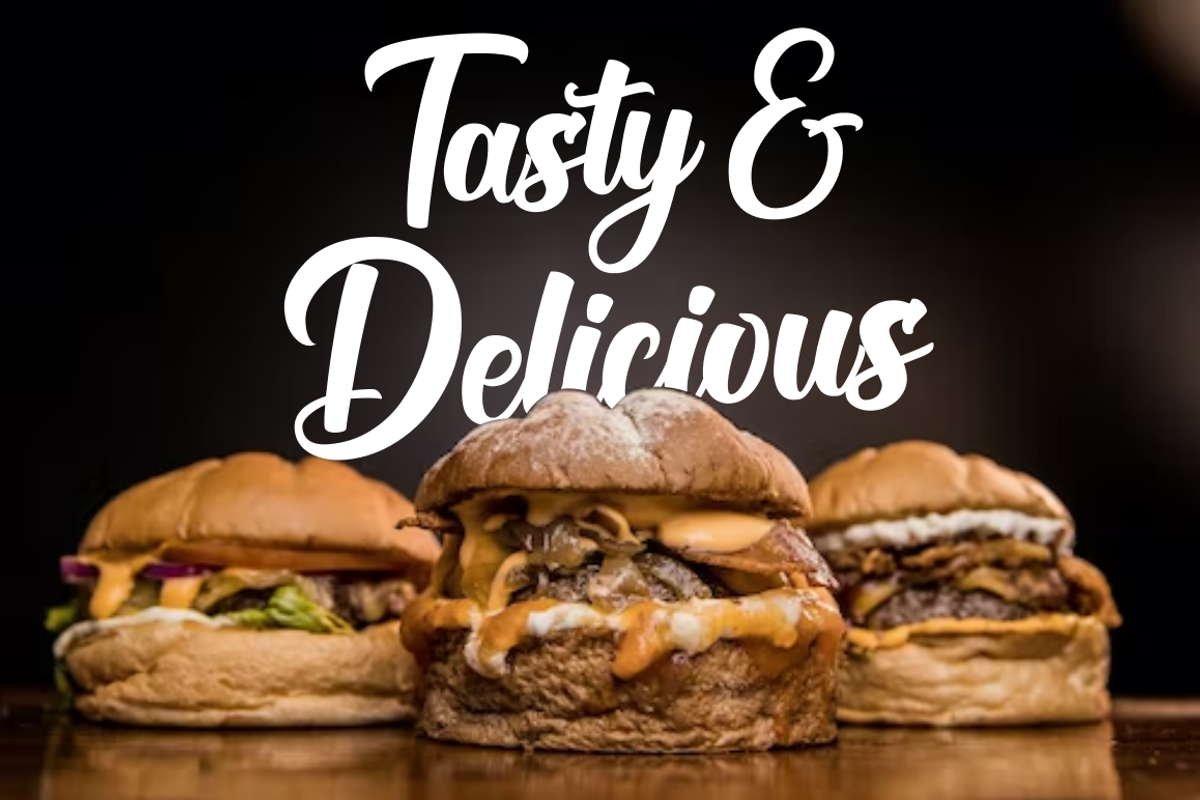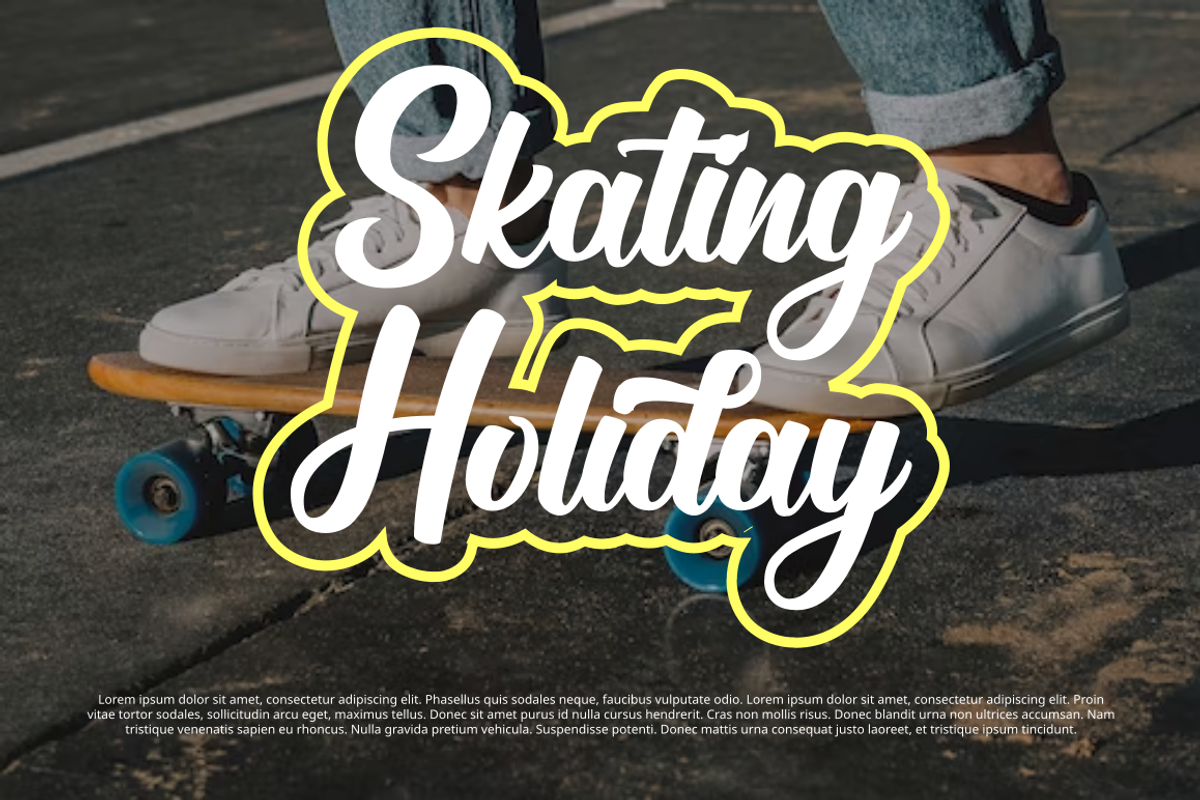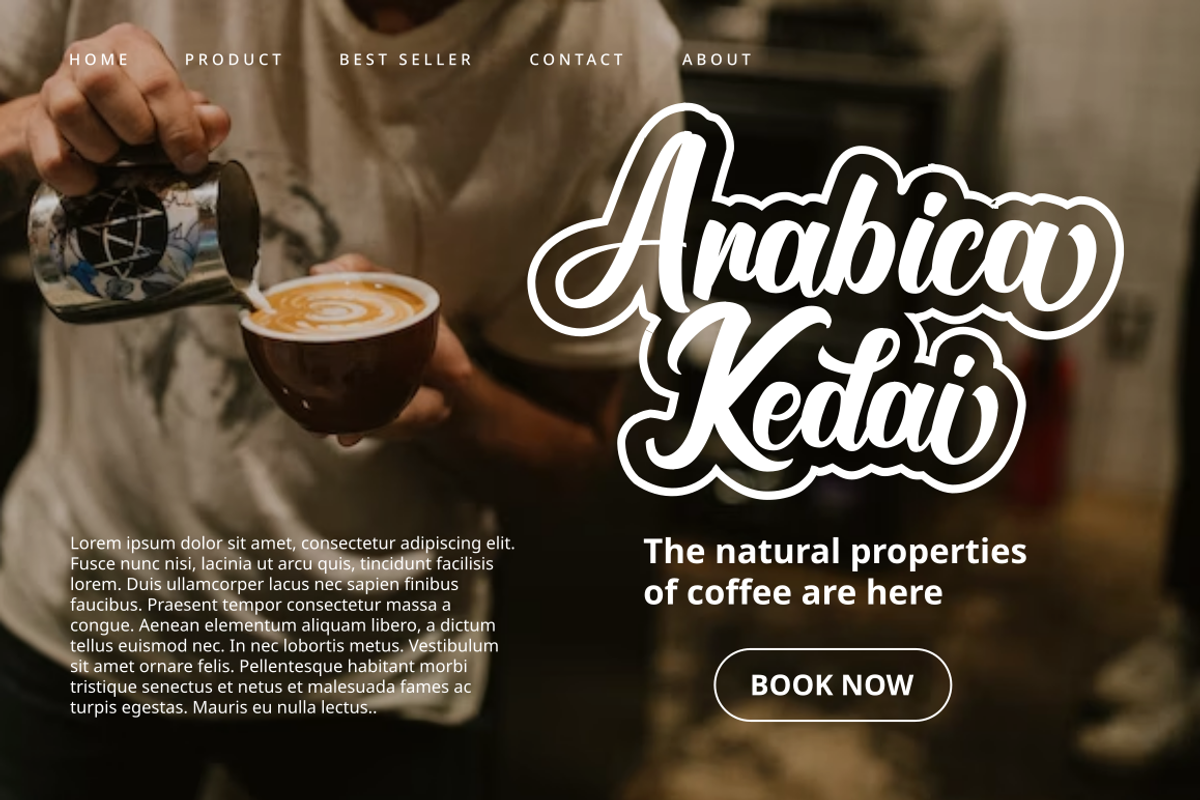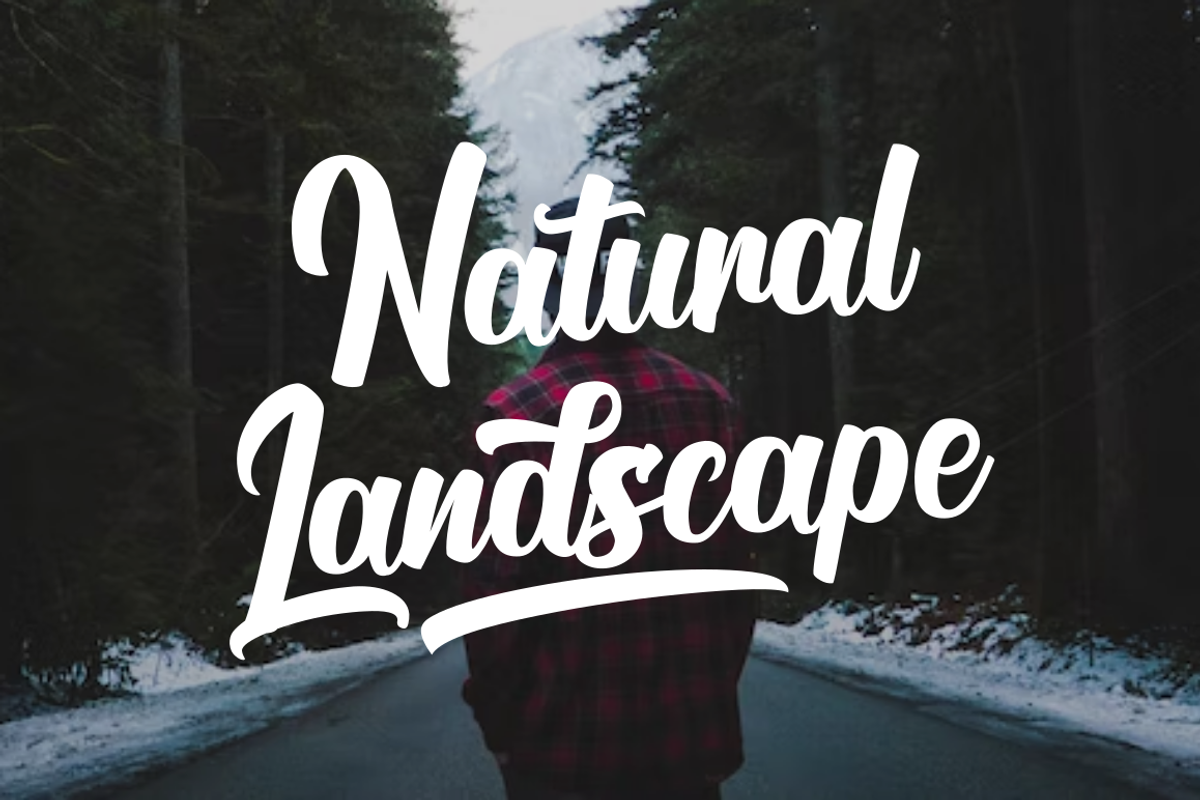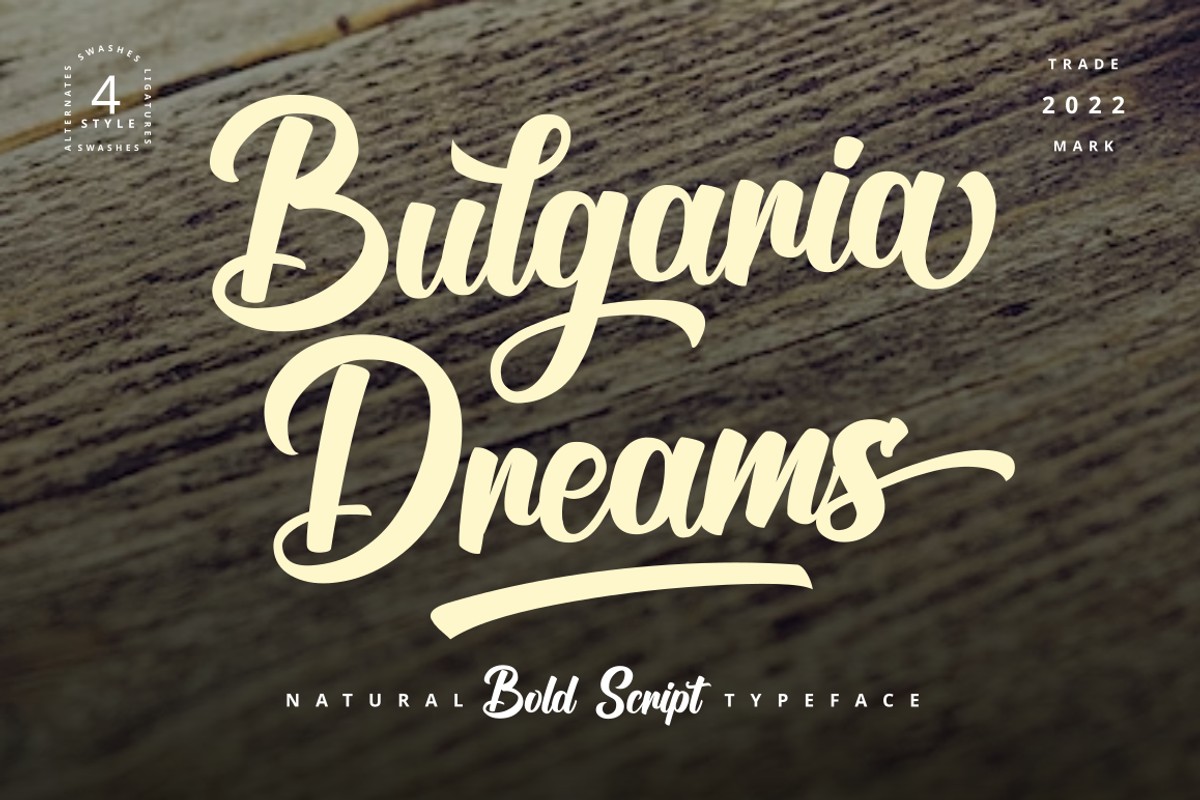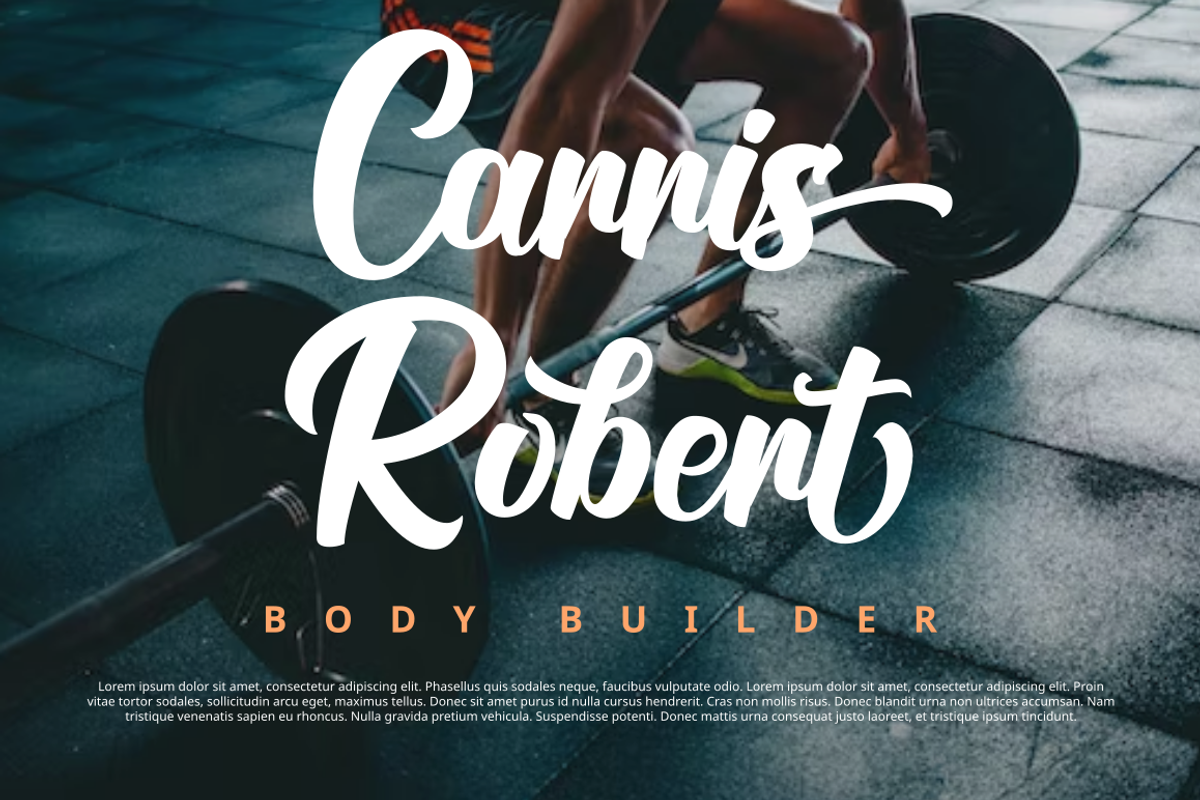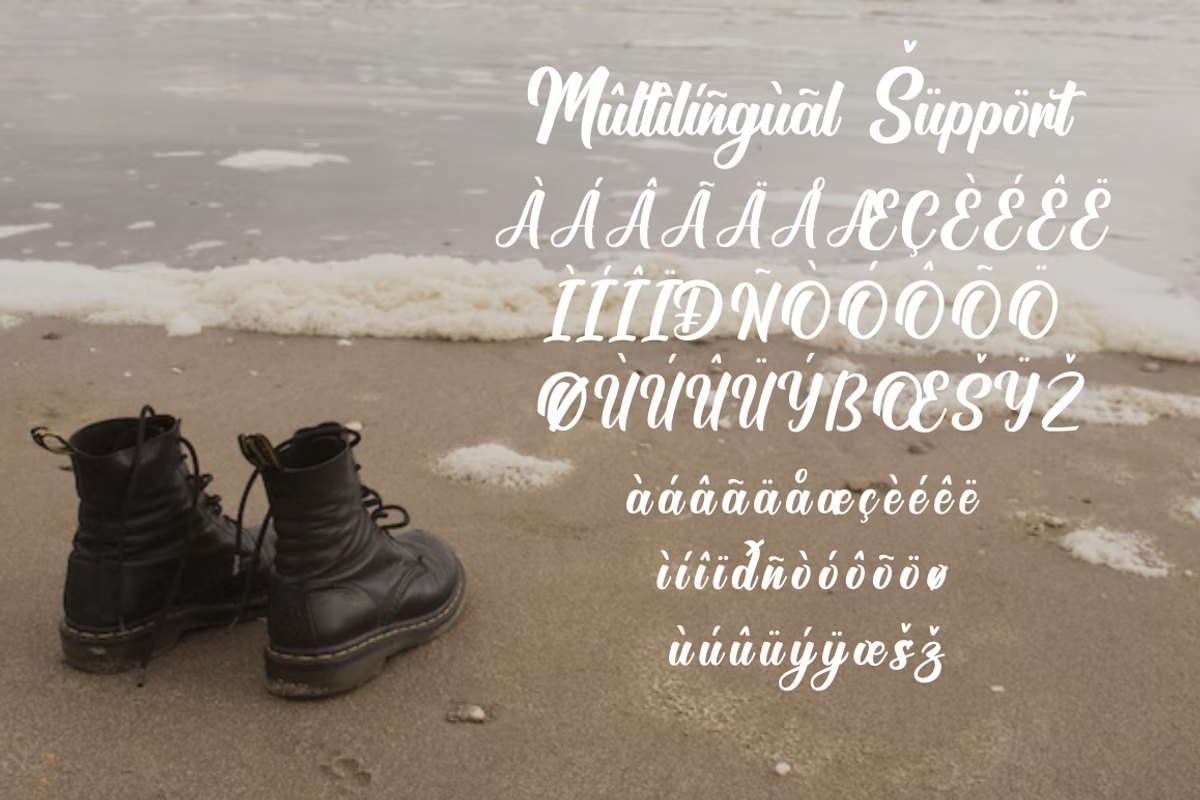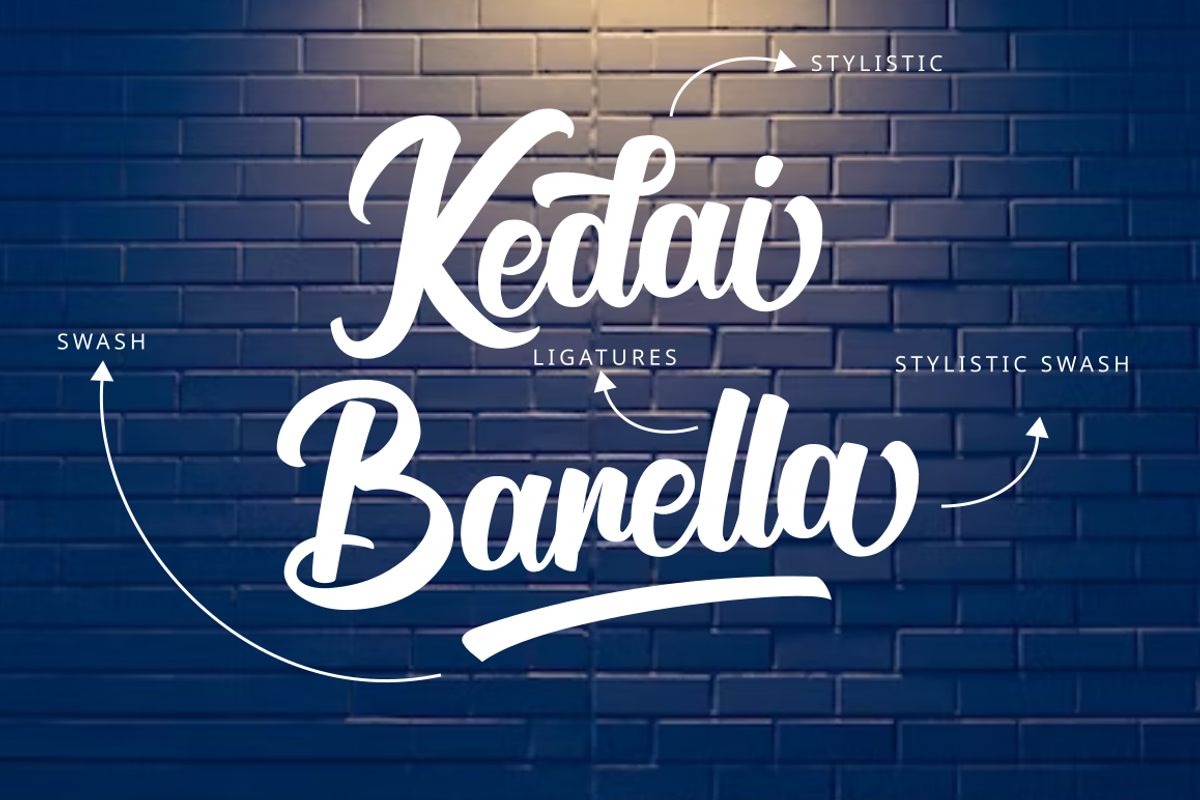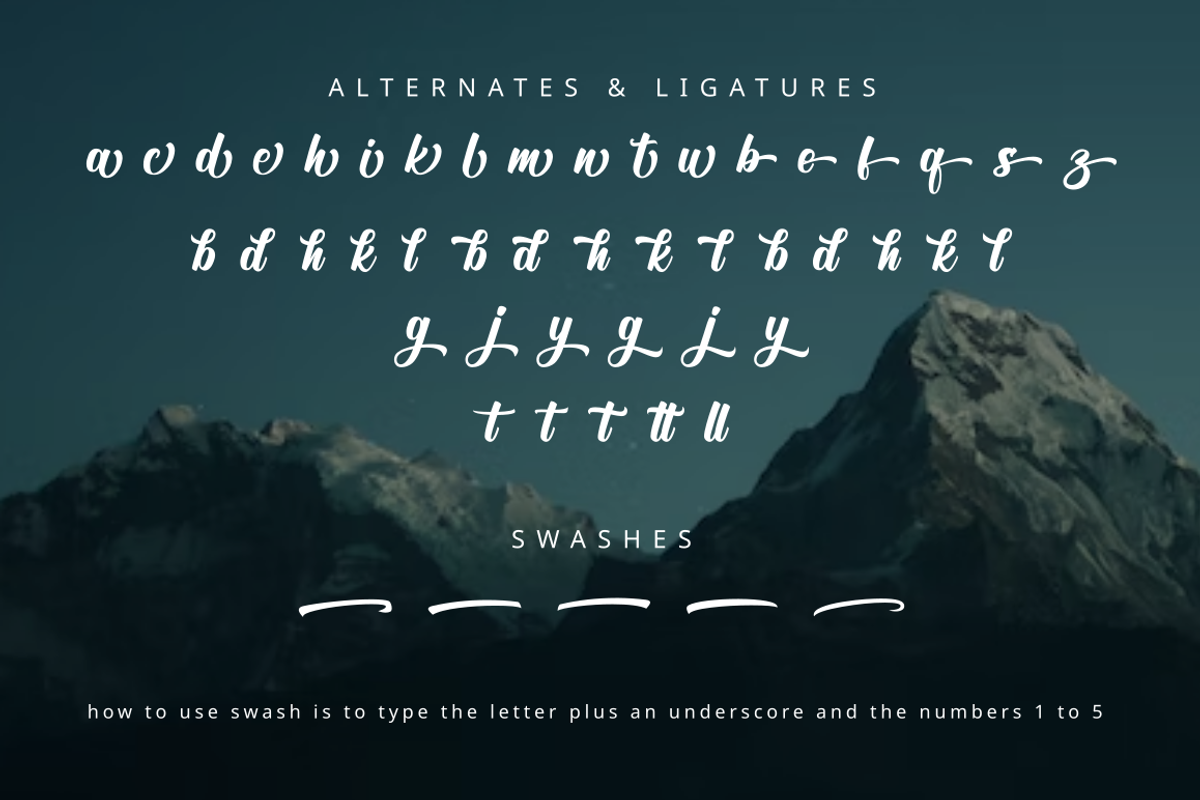
Bulgaria Dreams Apparel Font
Are you looking for fonts for logos and event brochures?
Bulgaria Dreams font the solution,
Bulgaria Dreams Font is a lettering style font with a touch of smooth and natural curved lines like when writing manually on paper using a brush pen.
There are 4 font styles that you can use to enhance your design
Apart from being used for logos and brochures, Bulgaria Dreams font can also be used for poster titles, book titles, lettering, merchandise Design etc
- More than 270 of glyphs (include Uppercase, Lowercase, Numerals & Punctuations, Stylistic,Ligatures )
- multilingual support
- PUA Encoded Characters (fully accessible without additional design software)